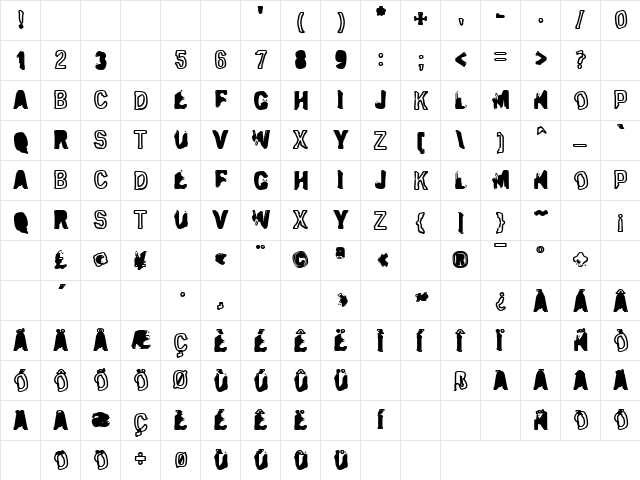
Complete Eclipsed Moon Outline glyph index. Displaying only characters natively supported by Eclipsed Moon Outline font.
Eclipsed Moon is built around its visual character rather than neutral utility - its distinctive forms are designed to make an impression at display sizes.
Font Pairing: Pair with a clean neutral sans-serif for body copy to let Eclipsed Moon's character lead without overwhelming the composition.
Pro Tip: Use Eclipsed Moon exclusively at display sizes - it was designed to be seen, not read at length. Let a neutral companion handle body copy.